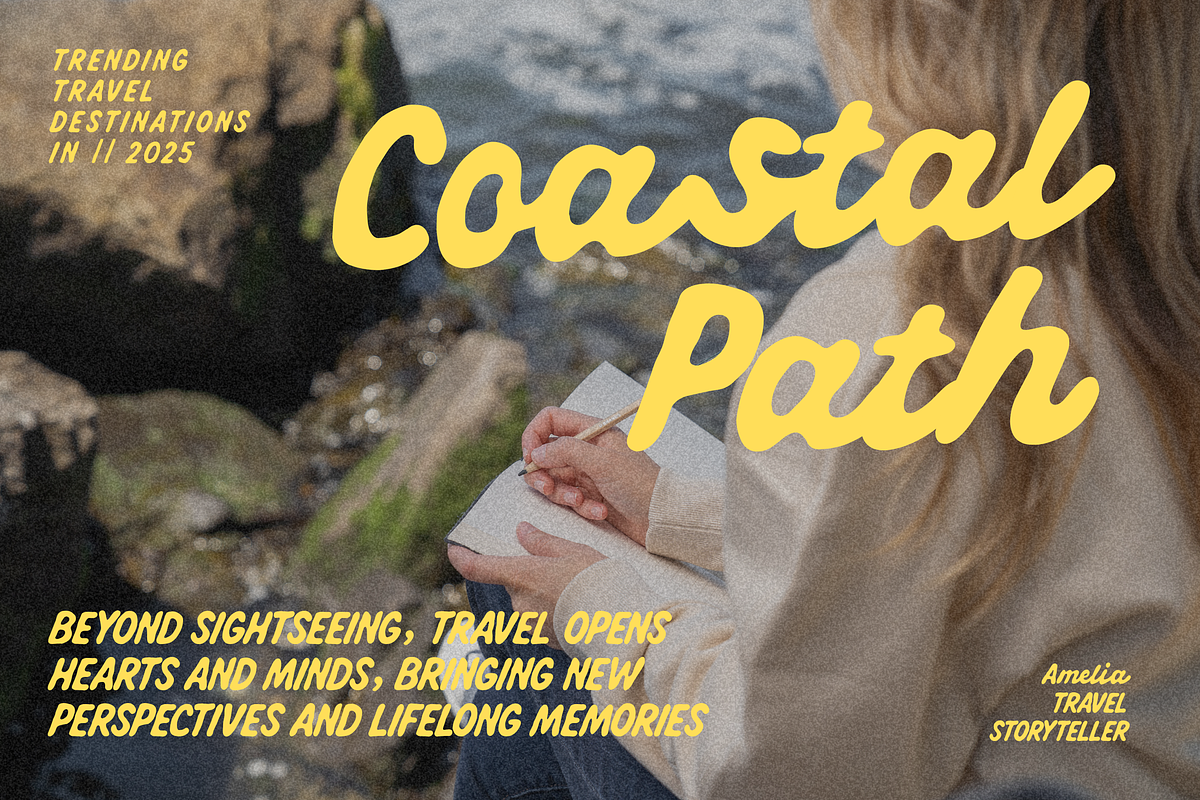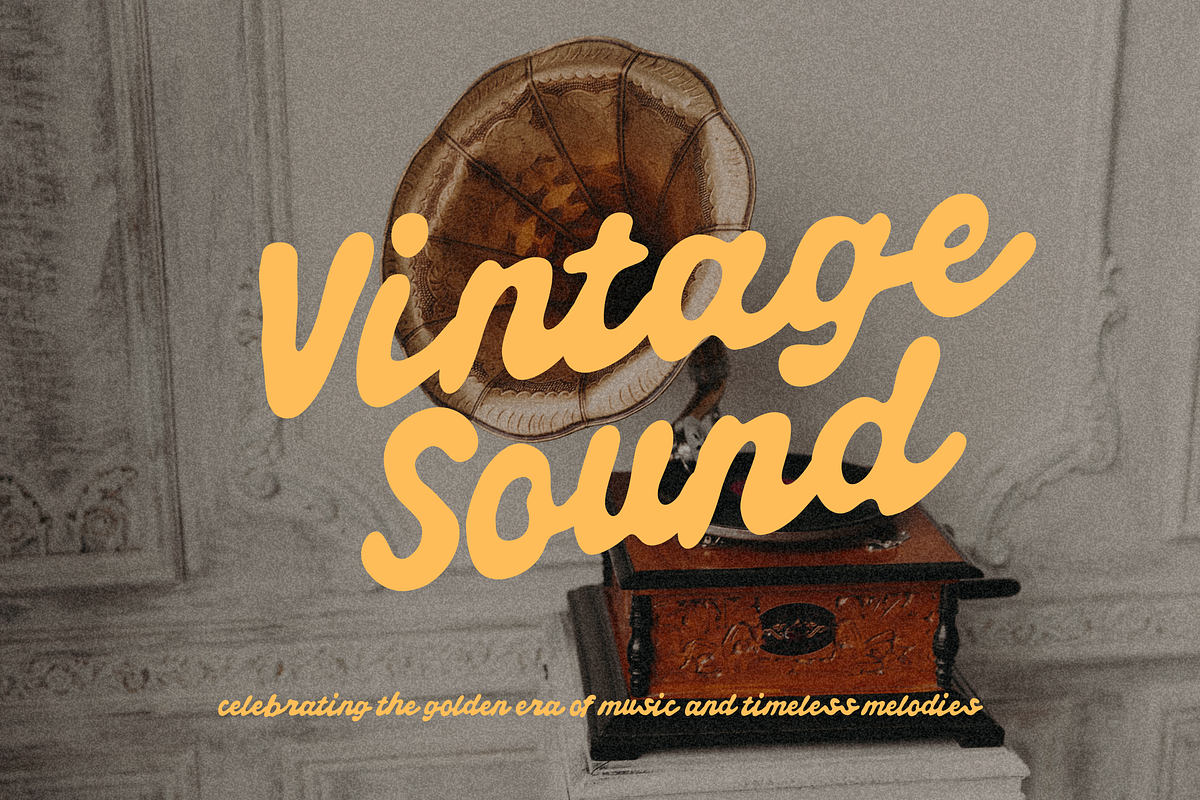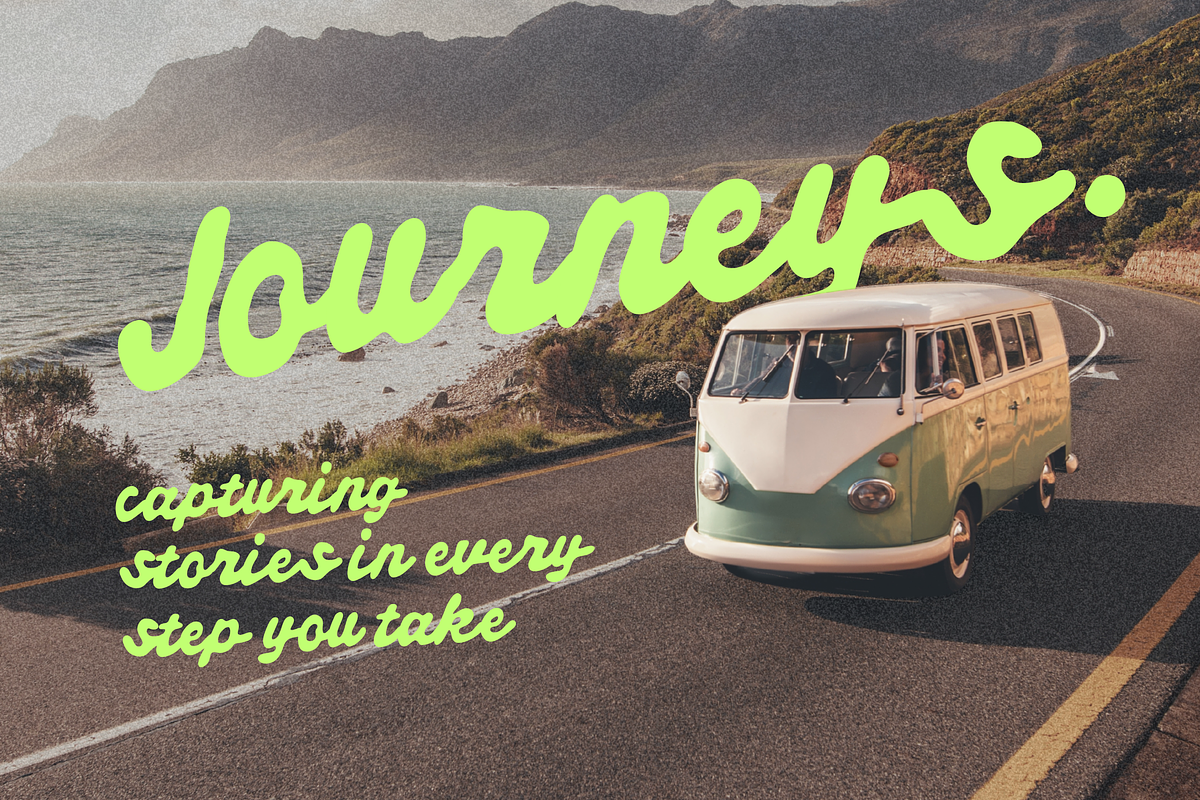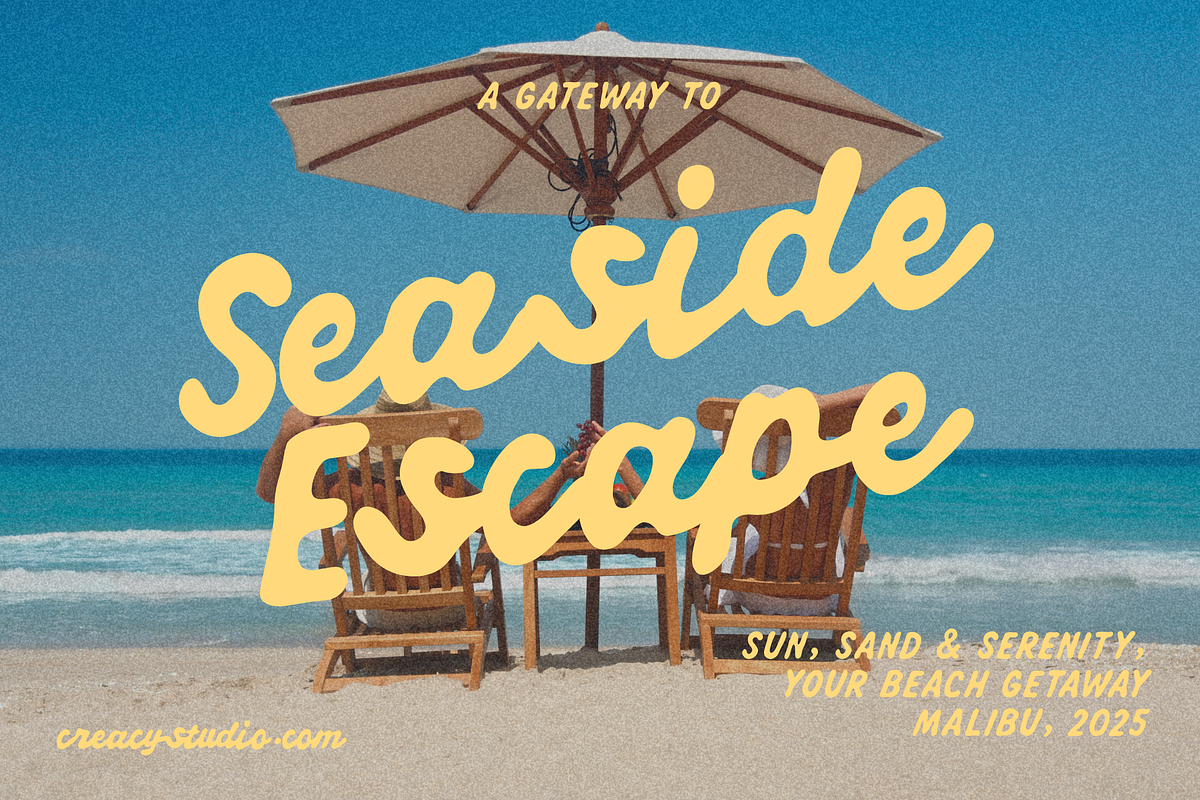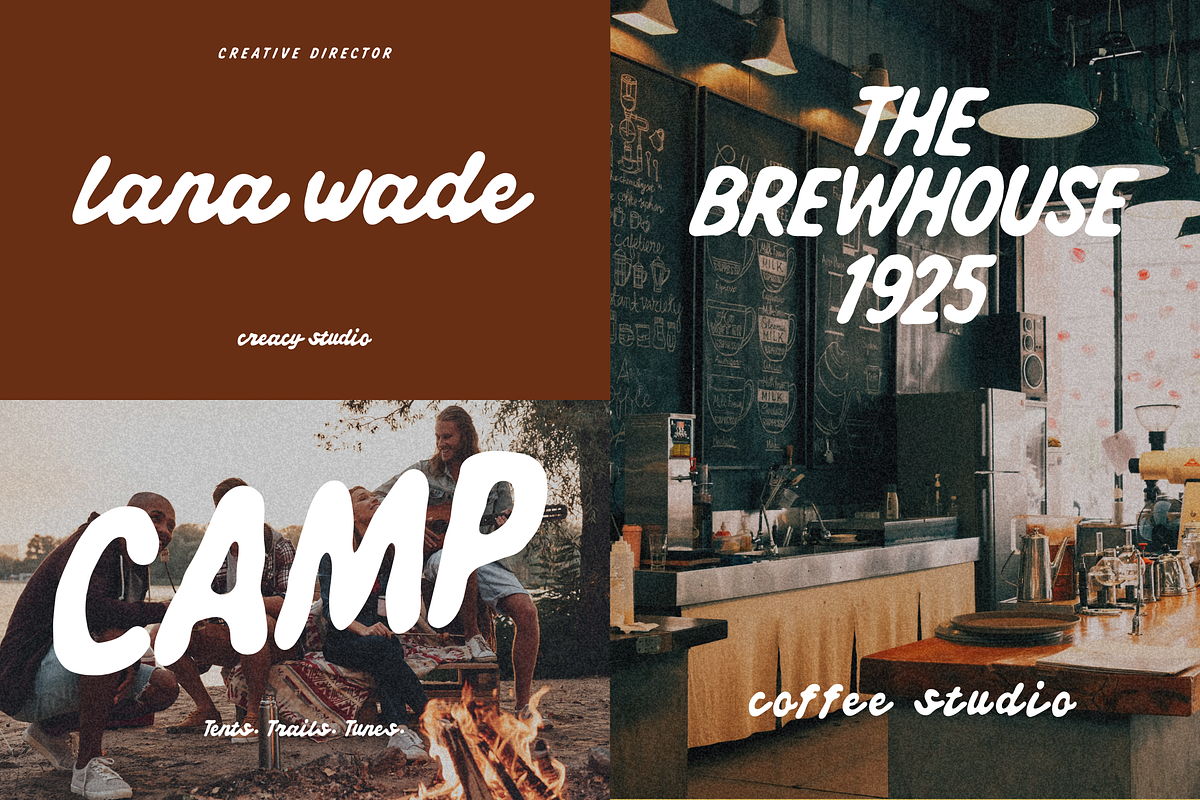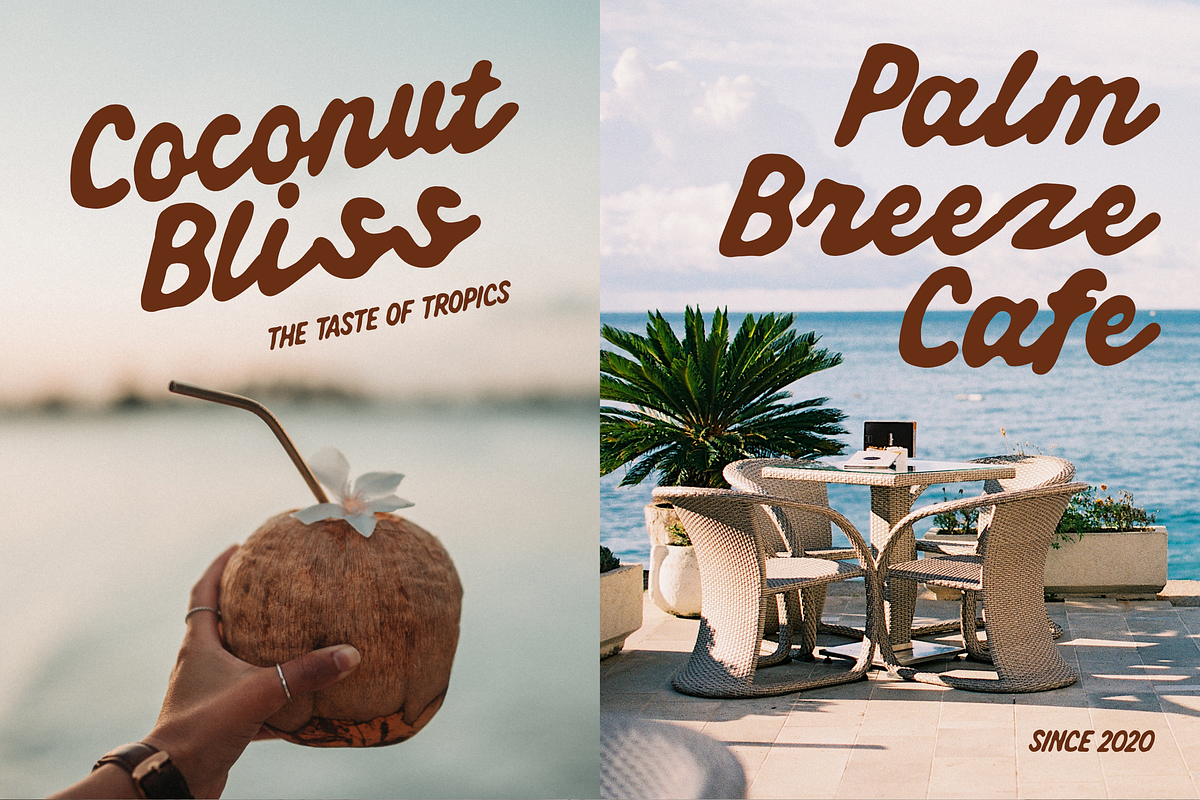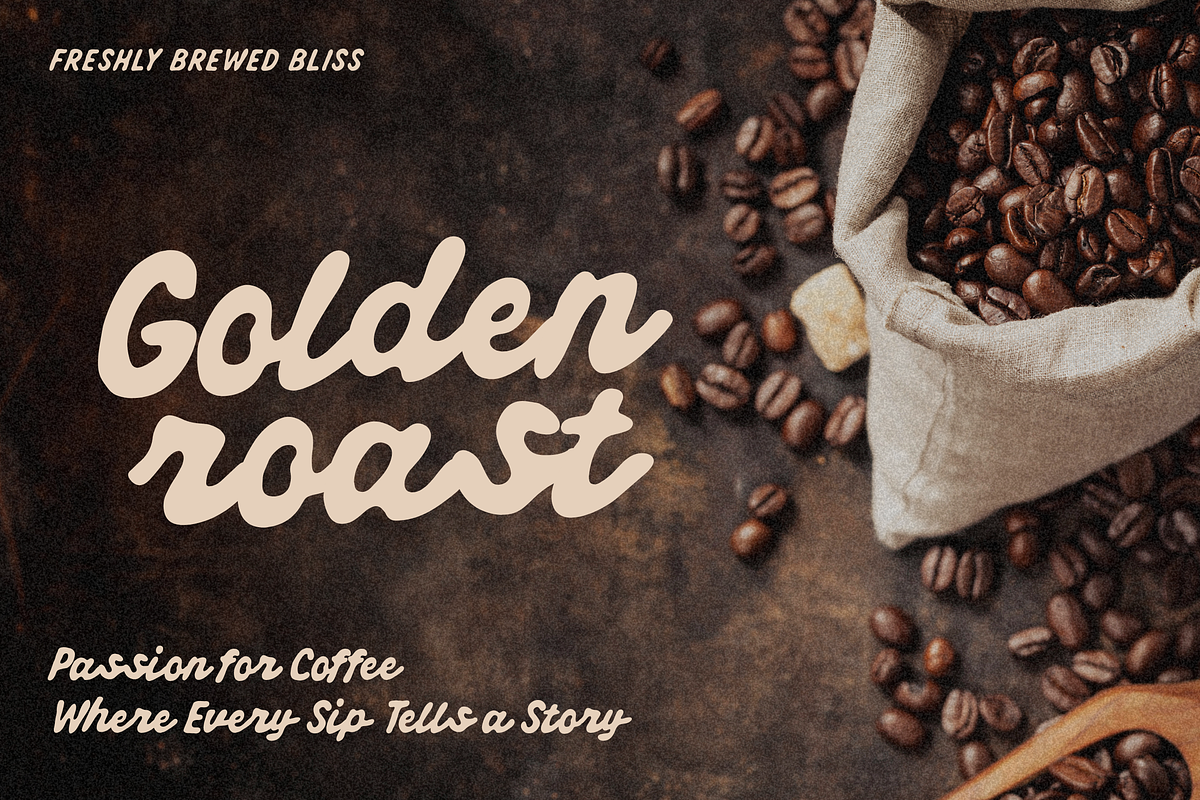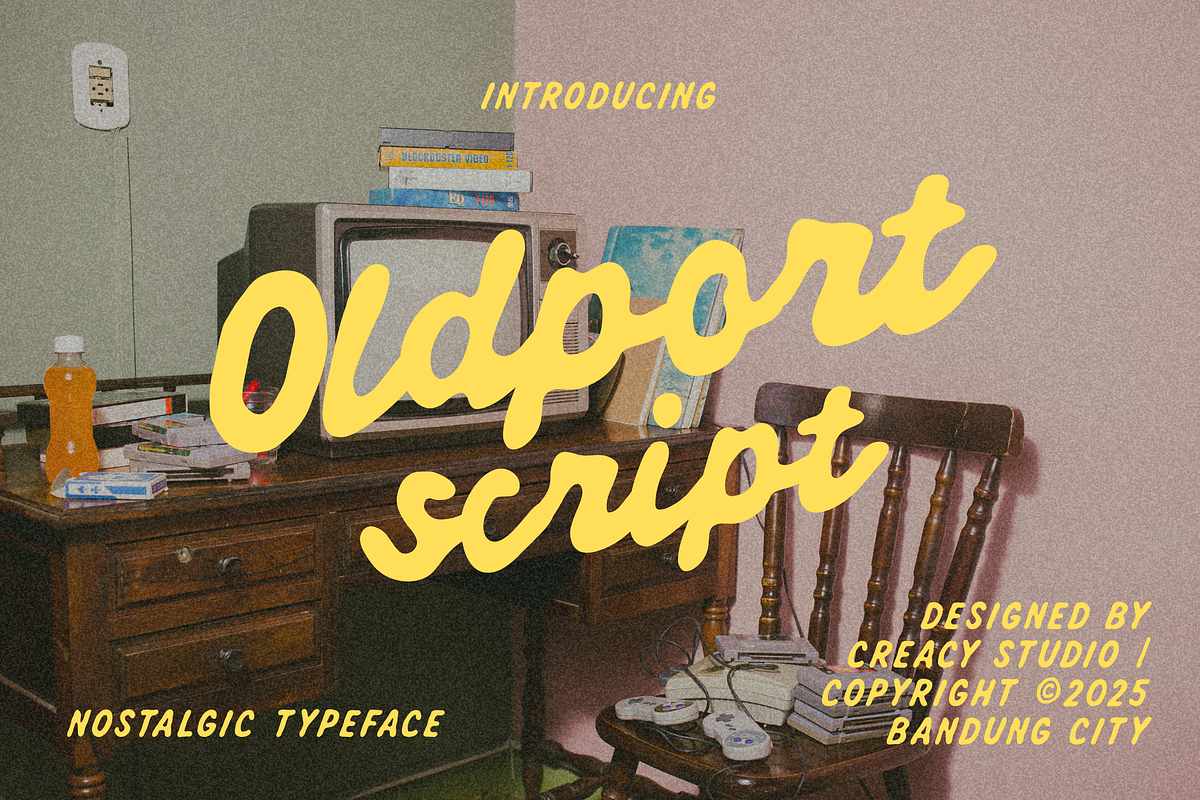
Oldport Script – Nostalgic Retro
Oldport Script – Nostalgic Handwritten Typeface
Bring back the golden memories with Oldport Script, a bold and smooth handwritten typeface that captures the warmth of retro aesthetics. Perfectly blending vintage charm with modern usability, Oldport Script is designed for projects that need a touch of nostalgia while staying stylish and readable.
Its flowing letterforms and playful curves make it a versatile choice for branding, packaging, posters, social media graphics, café menus, and travel-themed designs. Whether you’re evoking beachside bliss, cozy coffee shop vibes, or timeless music nostalgia, Oldport Script adds personality and emotion to every piece.
- Smooth, bold strokes for high readability
- Perfect for retro, travel, food, and lifestyle themes
Ideal for:
- Logo & branding
- Posters & flyers
- Packaging design
- Social media posts
- Merchandise & apparel
- Event invitations
Let Oldport Script be your go-to font for capturing the beauty of the past and bringing it into your modern designs.